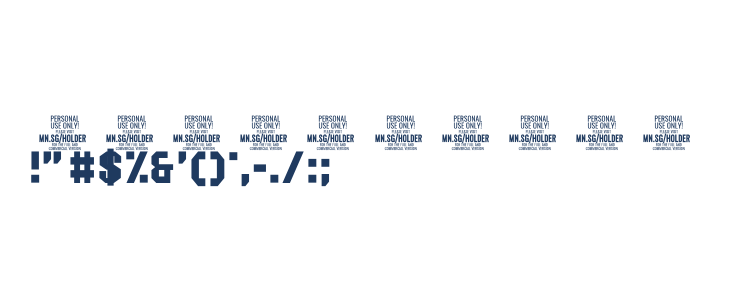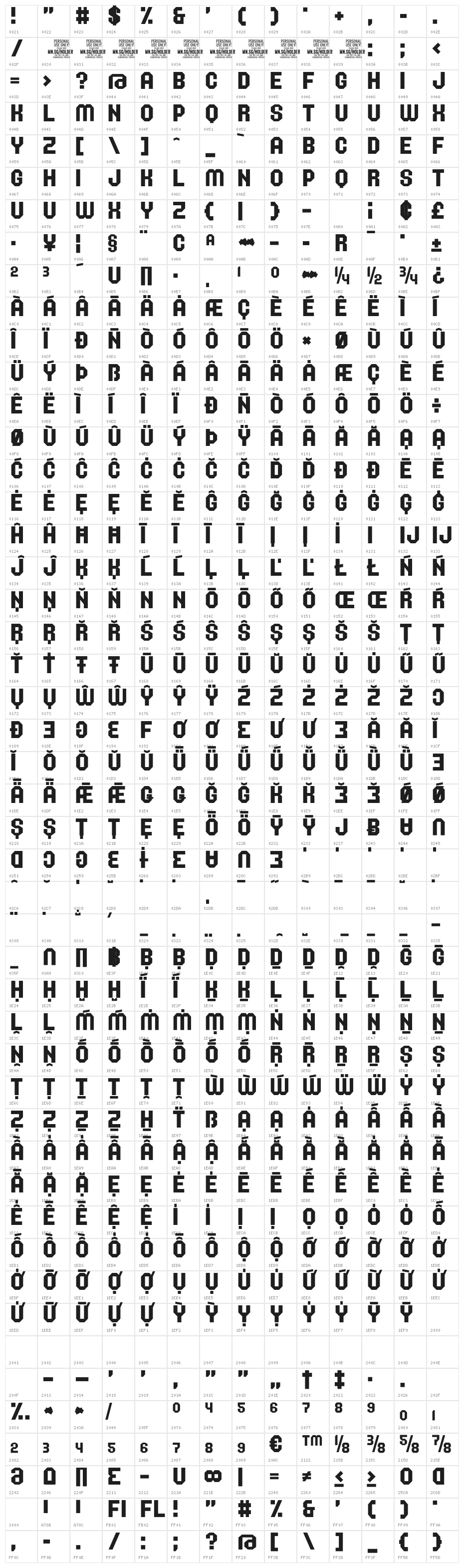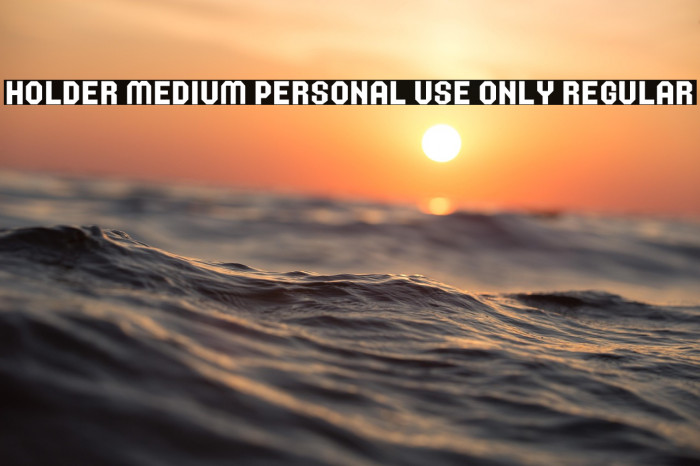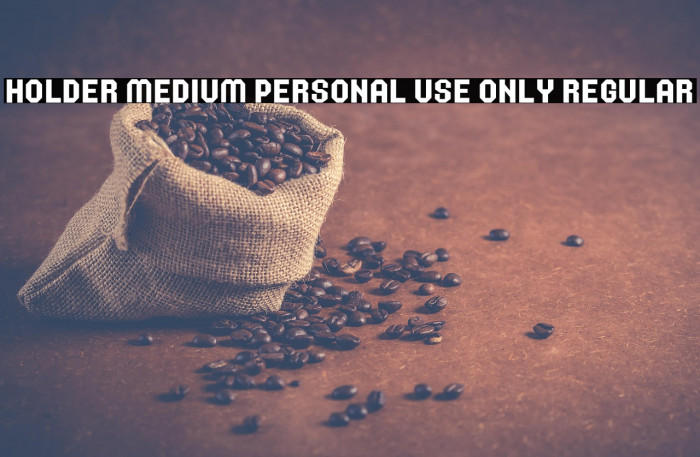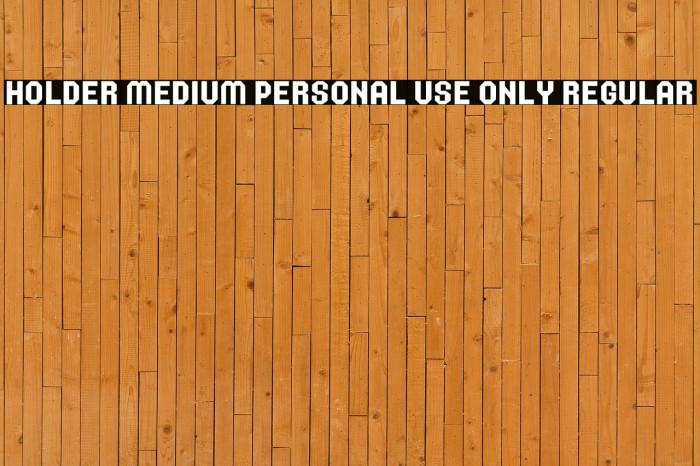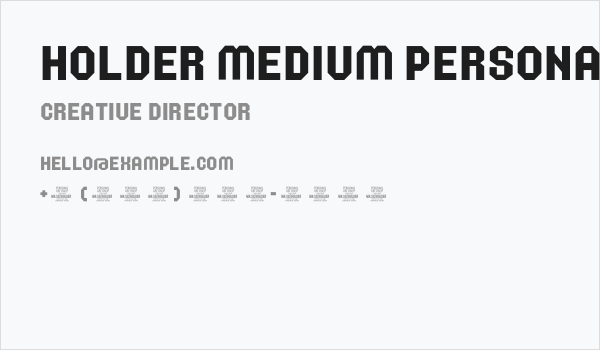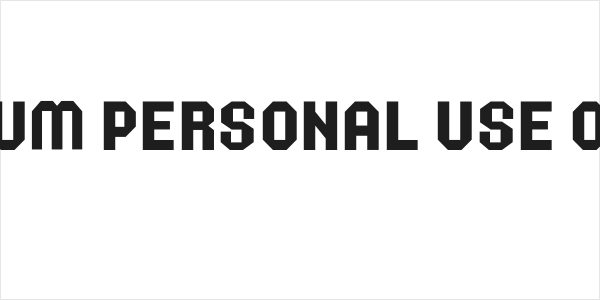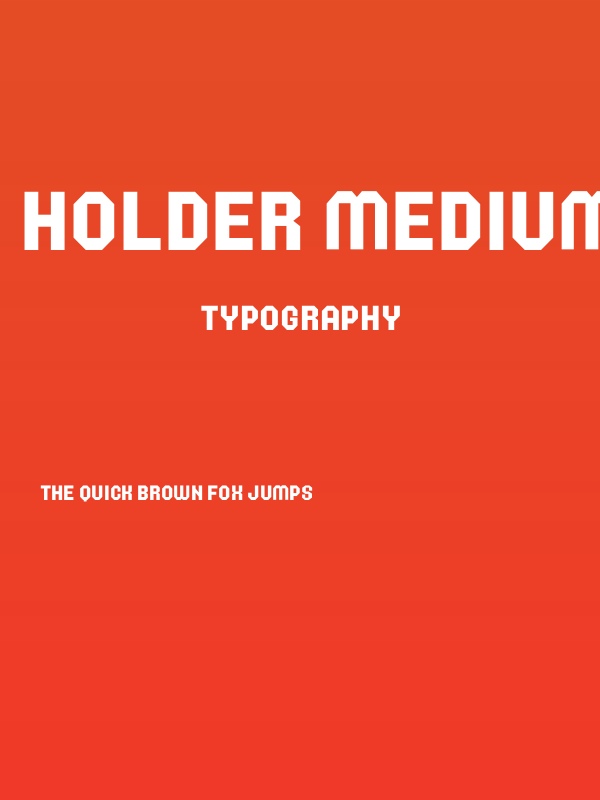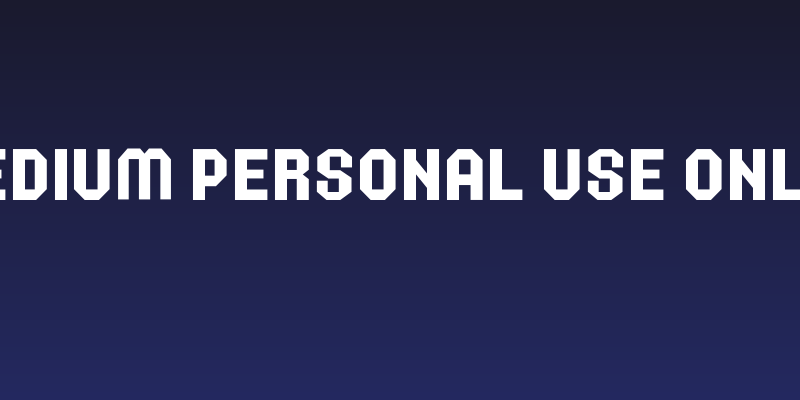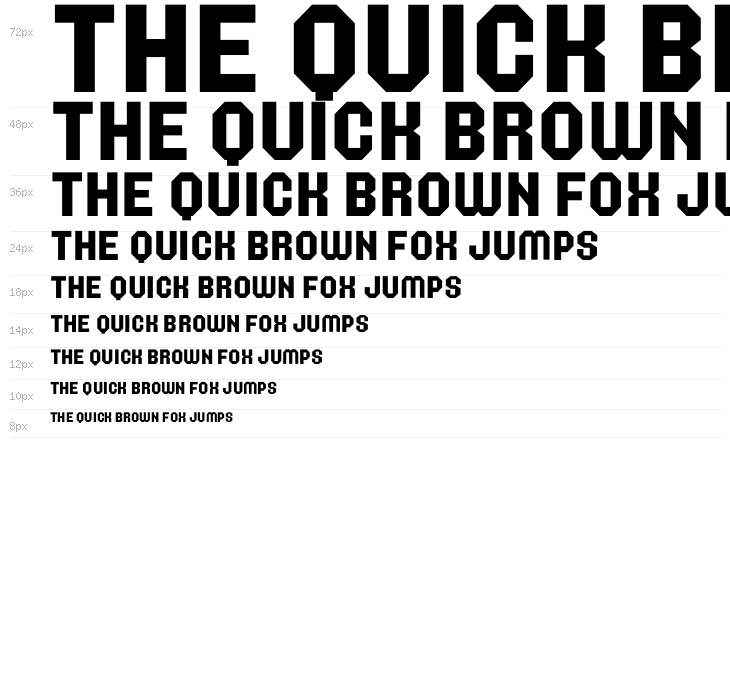
Holder Medium PERSONAL USE ONLY Regular Font
Holder Medium PERSONAL USE ONLY Regular Description
This font features a bold, geometric design with strong, angular lines and a modern aesthetic. The uppercase letters are uniform in height, creating a cohesive and structured appearance. The characters are wide and blocky, giving a sense of stability and strength. The font includes a full set of uppercase letters, numbers, and a variety of special characters, making it versatile for different design needs. Its bold presence makes it ideal for attention-grabbing headlines or logos. The spacing between characters is tight, enhancing the compact and impactful look.